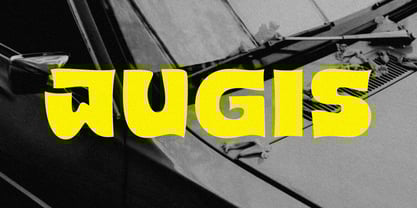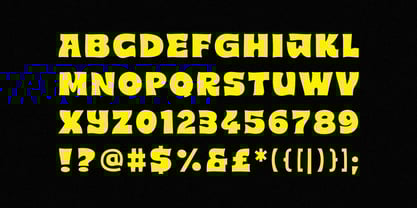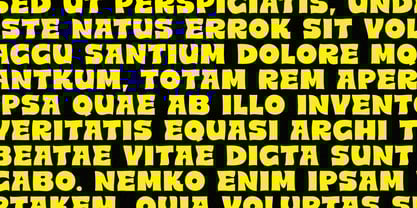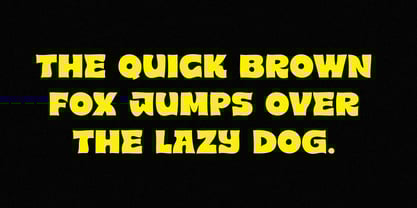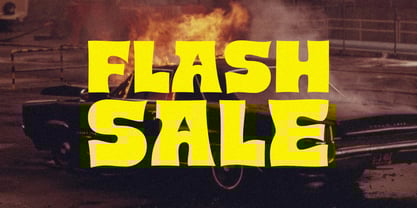
Jugis
La familia tipográfica Jugis fue diseñada por Szymon Mandziarz y publicada por ESEM Type. Jugis contiene 1 estilos. Más información sobre esta familia
Jugis Display is a font with characteristic shapes, perfect for graphic designs with an intriguing style. The font will work well in poster design, branding, logo design and clothing branding.
An independent font foundry that was created out of passion for typography and creative needs. The founder and author is Szymon Mandziarz. The beginnings of letter design began many years ago with graffiti. The foundry focuses on the production of modern, unique typefaces with a clear form and details that attract attention. The font foundry aims at providing its customers with high quality fonts that stand out with their original style.